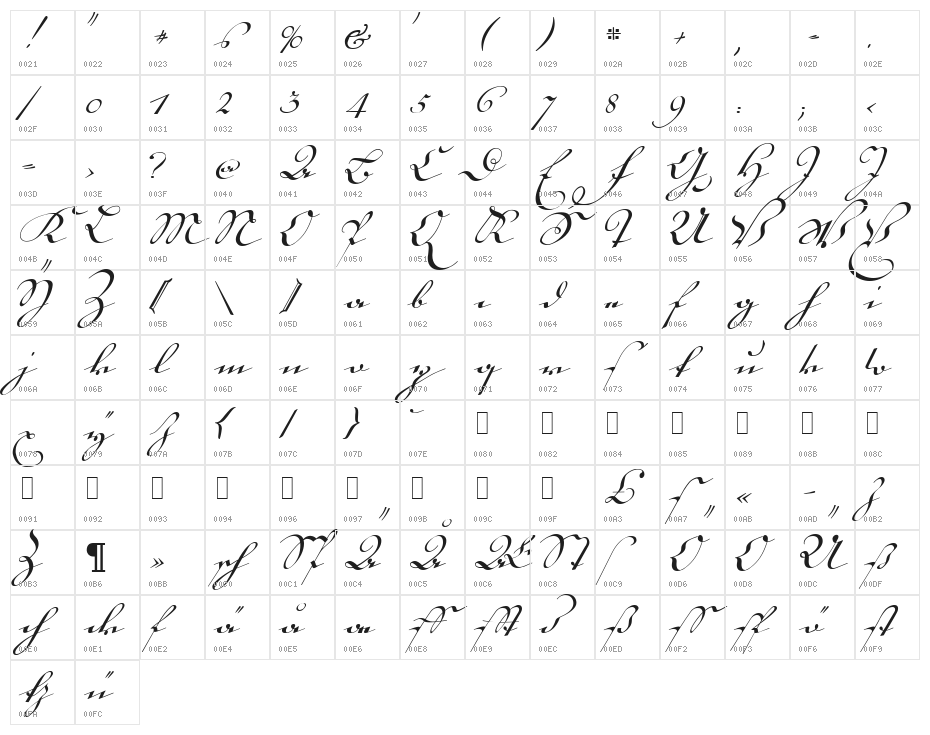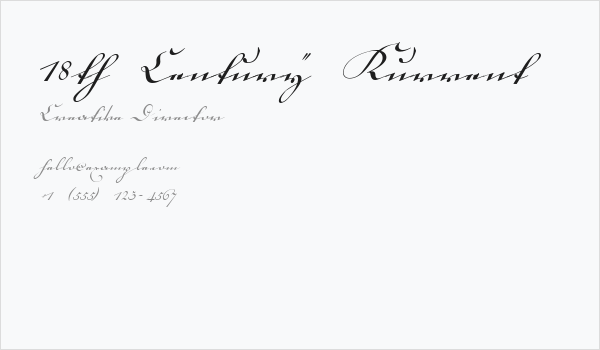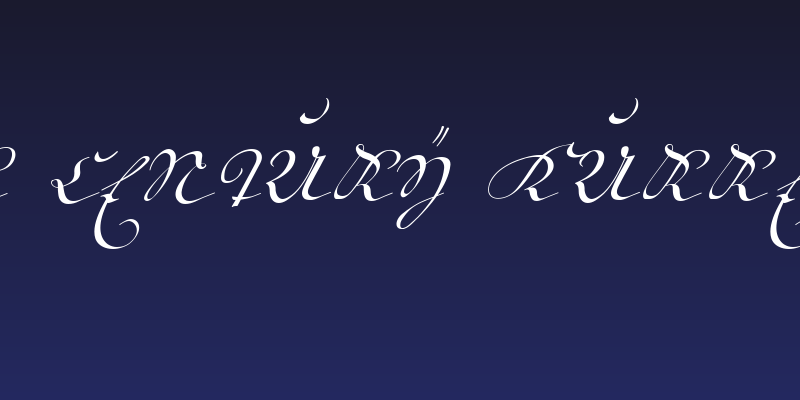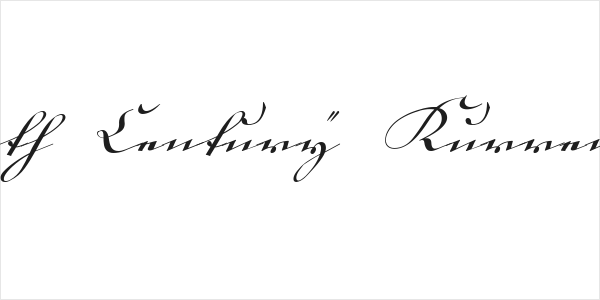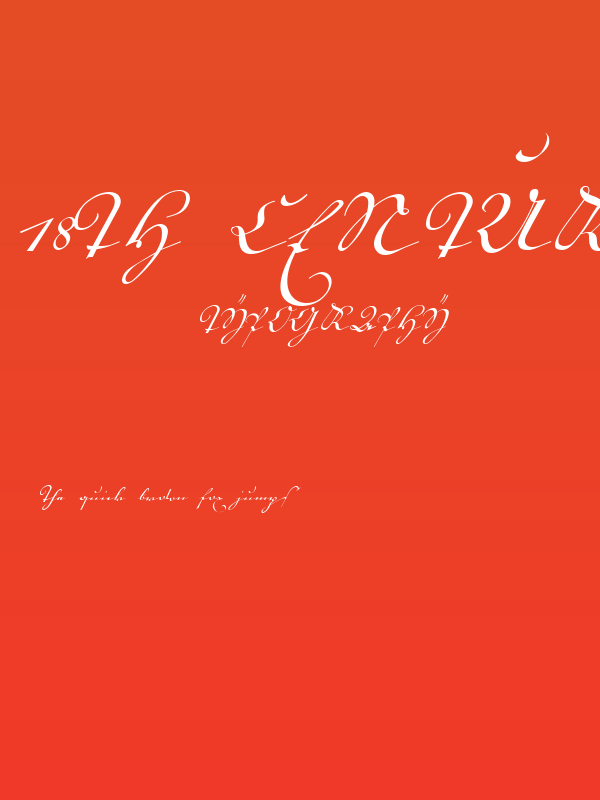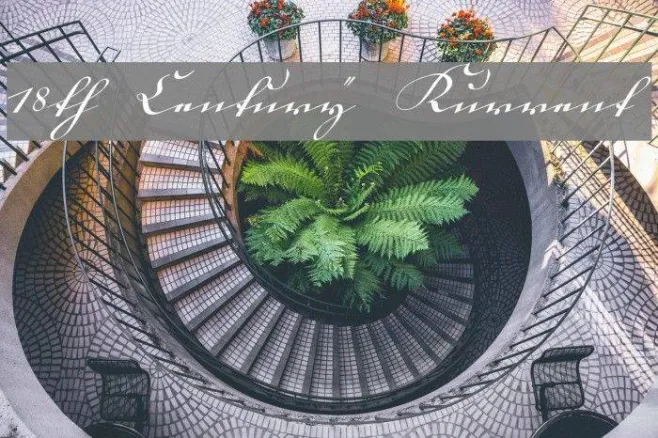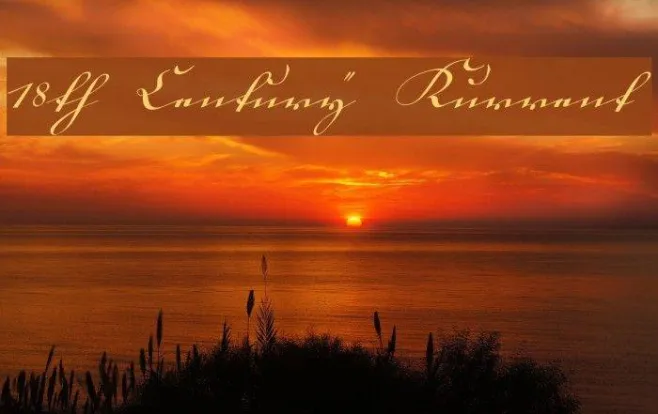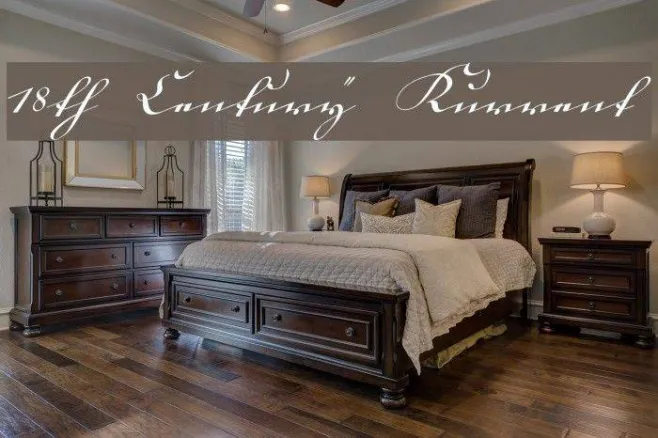
18th Century Kurrent Font
18th Century Kurrent Description
This font exudes a historical elegance reminiscent of 18th-century script styles. It features intricate, flowing lines with a high degree of flourish, capturing the essence of traditional calligraphy. The uppercase letters are ornate, with exaggerated loops and curves, while the lowercase letters maintain a consistent slant, adding to the overall fluidity. The numerals are equally decorative, with unique, stylized forms that complement the alphabet. Special characters are thoughtfully designed, maintaining the font's cohesive aesthetic. The overall appearance is both sophisticated and artistic, ideal for projects that require a touch of vintage charm.